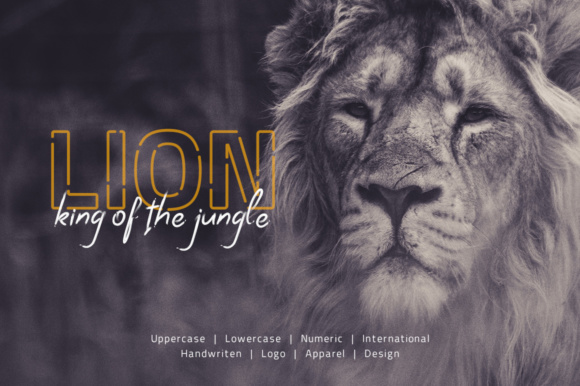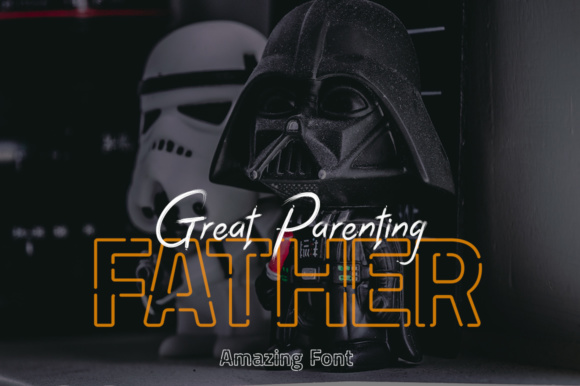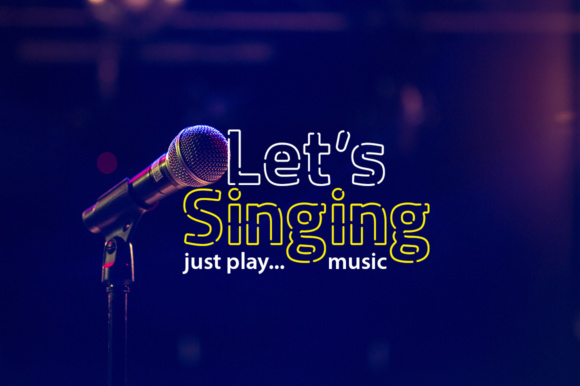
Introduction to Mexican Grape Font
The Mexican Grape is a striking display font.
It’s perfect for logos, posters, badges, and much more .
Mexican Grape Font offers exceptional quality and versatility, making it a valuable addition to your design toolkit. Whether you’re creating for personal projects or commercial use, Mexican Grape Font delivers professional results.